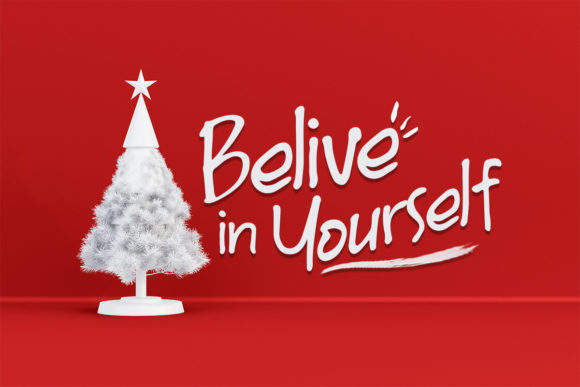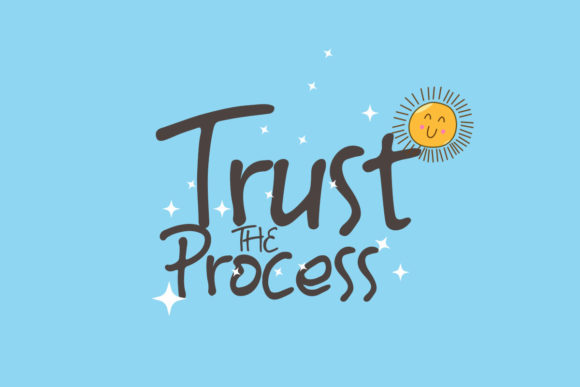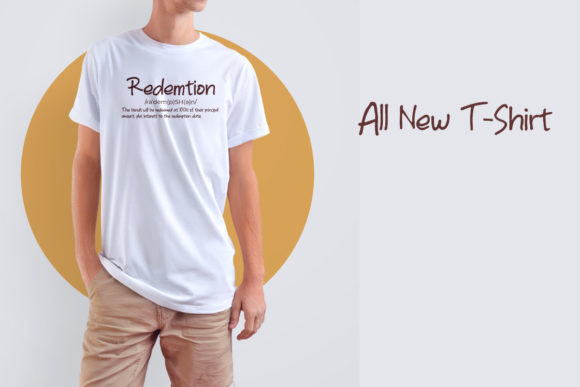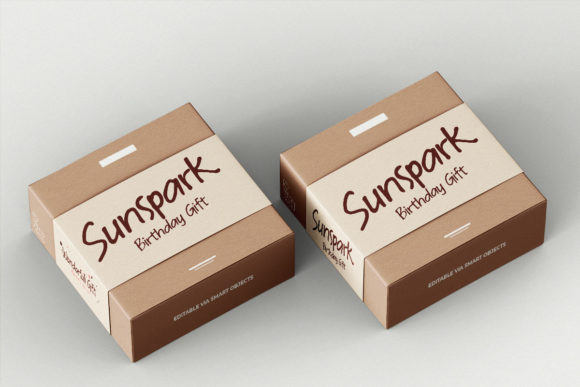
Snowy Font
About Snowy Font
Snowy is a stylish handwritten font that will impress you with its versatility. It is suitable for logo branding, beautiful fashion design, wedding invitations, or handwritten quotes.